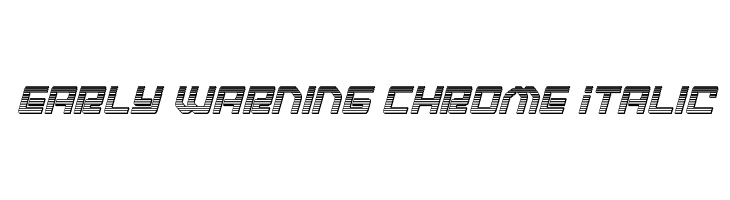
A modern, condensed sans-serif font with a sleek and minimalist design.
A sleek, modern, and condensed italic font with a light and airy feel.
A modern, geometric sans-serif font with a clean and compact design.
A modern, italicized font with medium contrast and a slightly condensed style.
A modern, condensed sans-serif font with uniform stroke width and geometric shapes.
A modern, condensed, and slightly italicized font with smooth curves.
A modern geometric sans-serif font with a clean and balanced design.
A modern, thin, and geometric font with elegant and minimalistic design.
A sleek, modern, and italicized font with thin strokes and a condensed style.
A bold, geometric, and condensed typeface with high contrast and modern appeal.
A bold, condensed, and italic font with high contrast, perfect for dynamic headlines.
A sleek, modern typeface with thin, uniform strokes and a condensed structure.
A sleek, modern, condensed italic font with consistent stroke width.
A bold, condensed font with a strong, modern appearance.
A bold, condensed, and italic font with high contrast and a modern style.
A bold, condensed font with uniform stroke width and tight spacing.
A bold, italic, and condensed font with a modern and dynamic style.
A bold, modern sans-serif font with a condensed style and consistent stroke width.
A bold, italic, and condensed font with a modern and dynamic style.
A bold, condensed font with strong, uniform strokes and a compact design.
A bold, condensed, and italic font with high contrast, perfect for impactful headlines.
A modern, italic, and slightly condensed font with a clean and professional style.
A modern, condensed sans-serif font with a clean and professional look.
A sleek, modern, and slightly italicized condensed font with light strokes.
A modern, condensed sans-serif font with medium contrast and excellent readability.
A modern, italic, and slightly condensed font with medium contrast.
A modern, condensed sans-serif font with uniform stroke width.
A modern, italic, and slightly condensed font with a clean design.
A bold, italicized, and condensed font with a modern style.
A sleek, modern, and condensed font with clean lines and a minimalist aesthetic.
A sleek, condensed, and italicized extra-light font with a modern aesthetic.